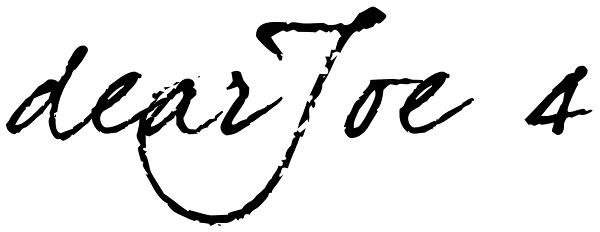
dearJoe 4
DearJoe 4 is the last of four handwritten scripts by JOEBOB graphics. A complete character set with numbers and most (but not all) special signs.